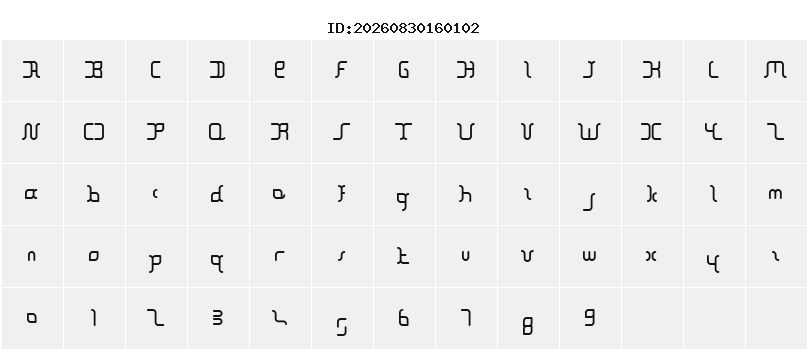
The Block Preview
• Font Name: The Block
• Full Font Name: The Block
• Manufacturer: Joseph Jeantet for Swimmingpoulp
About The Block.ttf
The Block.ttf is a modern, elegant sans-serif font designed for ultimate readability and visual harmony. Perfect for branding, headlines, web design, and print materials.